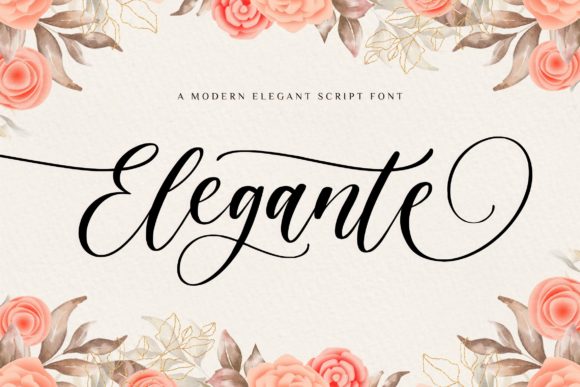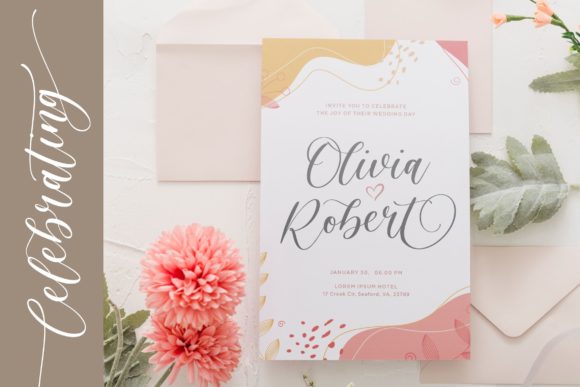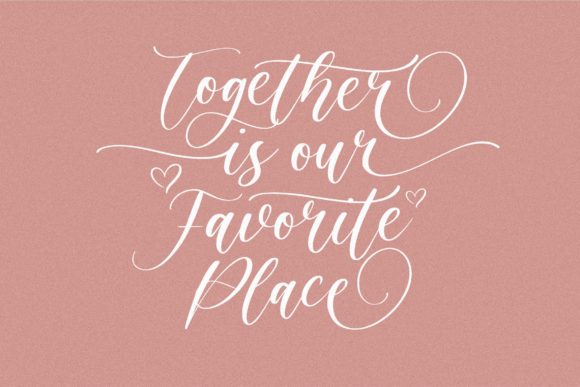
About Elegante Font
Elegante is a captivating handwritten font that exudes charm and sophistication. Its enchanting script style lends itself seamlessly to a diverse range of design applications, making it a perfect choice for everything from heartfelt greeting cards to attention-grabbing headlines. The font’s versatility allows it to infuse a romantic and elegant touch into your upcoming projects.
The graceful and flowing lines of Elegante make it an ideal option for conveying various emotions and sentiments. Whether you’re aiming for a timeless and refined aesthetic or seeking to evoke a sense of romance, this font’s versatility enables you to effortlessly achieve your desired design outcome.
Elegante’s appeal lies in its ability to effortlessly adapt to a wide spectrum of creative projects. From crafting visually stunning headlines that command attention to adding a touch of romance to invitations and stationery, the font seamlessly integrates into various design contexts. Its beautifully designed glyphs and swashes, made accessible through PUA encoding, offer you the freedom to enhance your creations with intricate and ornate elements.
Incorporating Elegante into your designs opens up new avenues for creativity. The font’s enchanting appearance adds a dash of elegance and allure, elevating your projects to a higher level of sophistication. Whether you’re working on print materials or digital media, Elegante’s versatility and romantic feel make it an excellent choice for any design venture.